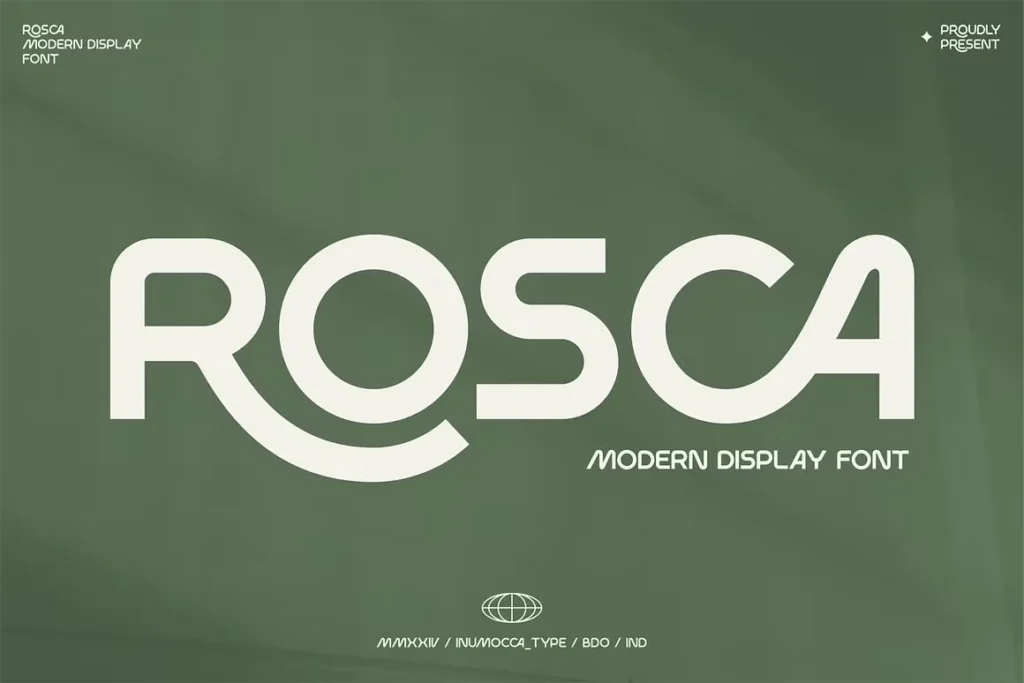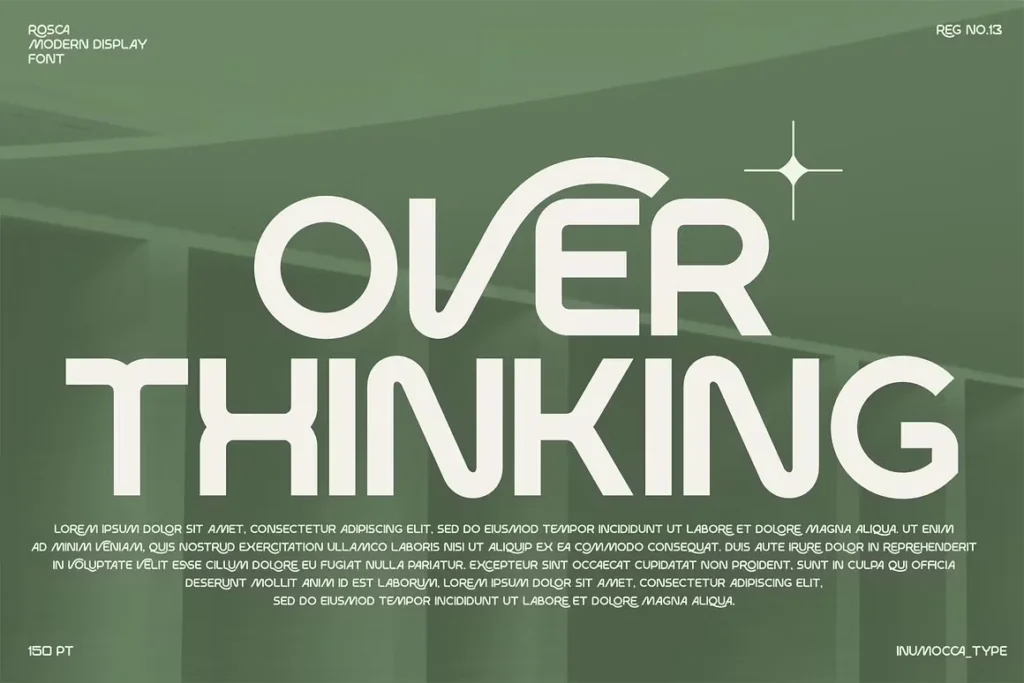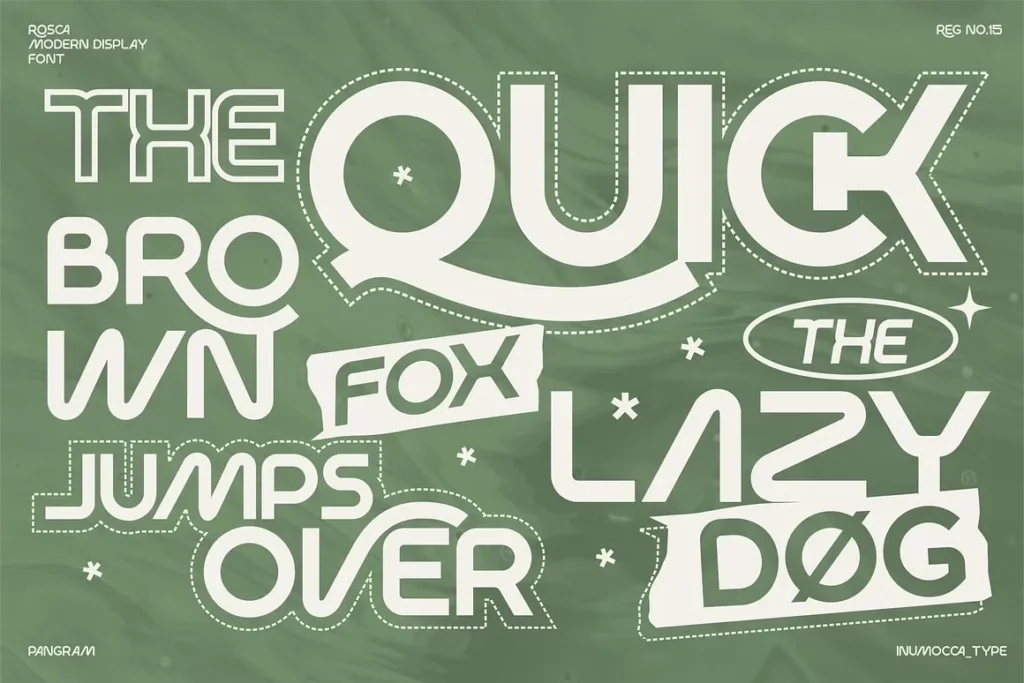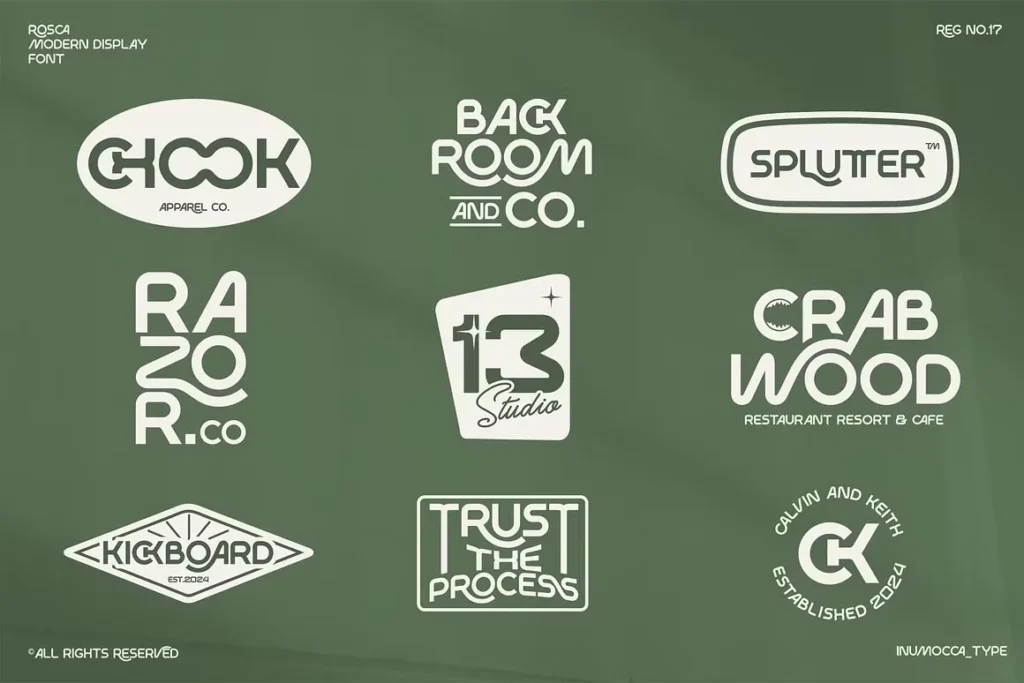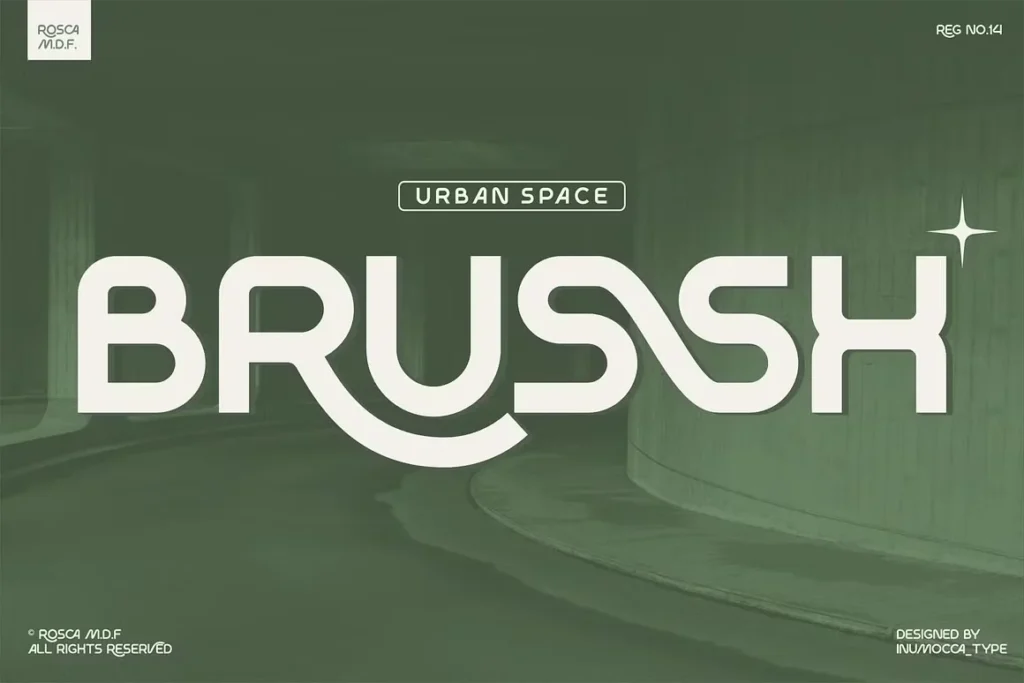
About Rosca Font
I’m a typographer and graphic designer who’s always exploring new ways to bring flair to branding projects. While working on a visual identity for a client, I stumbled across Rosca Font while browsing through Creative Market. Its bold, modern display immediately grabbed my attention. After testing a few lines of copy, I knew it had the personality I needed.
This isn’t a random review. I used Rosca Font in a live branding project. It worked beautifully in logo design, print layouts, and website mockups. If you’re into typography with character, this one deserves your attention. I’m sharing this because great fonts don’t always get the recognition they should, and Rosca’s one of them.
The Font and The Designer
Rosca Font is a modern display font designed by inumocca_type, a talented designer from Indonesia. It’s a decorative typeface with a strong futuristic and classy atmosphere. The shapes are bold, yet balanced with stylistic alternates and playful strokes that give it real personality.
This font isn’t trying to blend in. It was made to stand out. You’ll notice clean uppercase forms, sharp lines, and elegant ligatures that feel handcrafted. The character set includes full UPPERCASE, lowercase, symbols, punctuation characters, and multilingual characters, all wrapped in a PUA encoded format.
Features That Stand Out
Rosca Font delivers more than just looks. It’s a really playful typeface to covering many visual needs without feeling overdesigned. The beautiful ligature and unique stylistic alternates bring surprising variation to even simple words. You’ll find atmosphere awesome more beautiful ligature pairs that feel organic, especially in quotes lettering and wedding invitations.
It includes advanced OpenType features like ligature support, stylistic alternates, and all caps styling that give it flexibility. Designers working on editorial, poster, or magazine layouts will appreciate the visual rhythm these alternates provide.
If you’re a fan of futuristic and classy atmosphere awesome vibes, this font captures that. It fits right into professional branding while also feeling creative, bold, and digital. You’ll also find it easy to install, use across platforms, and experiment with text, image overlays, and other project design needs. Each file type is lightweight and works across most design tools.
Rosca Font is made for bold creative projects. It shines in branding, especially for logos that need style but not overcomplication. If you’re designing a website interface, this font adds edge without sacrificing readability. It’s also well-suited for digital ads, title cards, and application UI work.
Planning a magazine layout or publication? Rosca offers just enough flair to make headers pop. Its decorative nature brings personality to any print piece. For wedding invitations and quotes lettering, the unique glyphs add elegance. I’ve even tested it in Photoshop mockups and social media visuals, where the font stayed crisp and impactful.
This font isn’t just for display, though that’s where it excels. It’s ideal for project design, poster titles, text overlays, and aesthetic branding. Whether you’re working on a contemporary portfolio or a professional client pitch, Rosca adapts. You may also like using it in adobe tools, or combining it with like lettering styles for a polished finish.